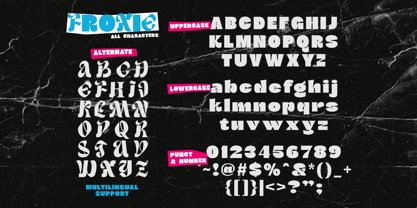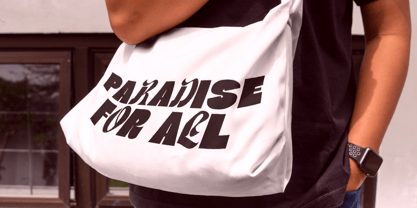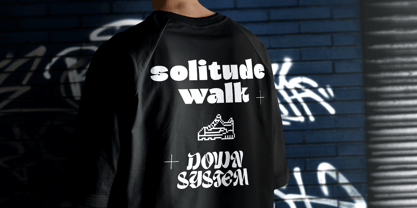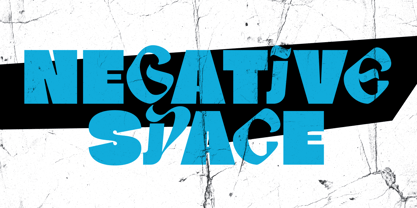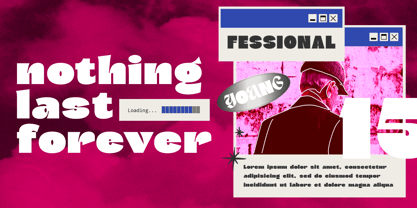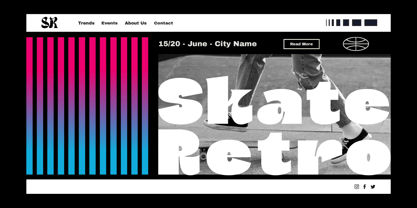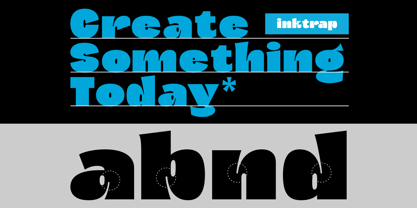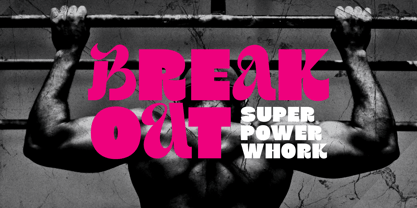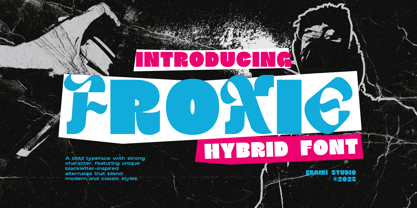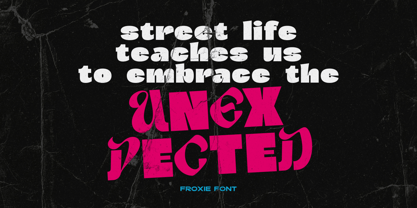
Froxie
by Ergibi Studio
The Froxie Font Family was designed by Riyadh Rahman and published by Ergibi Studio. Froxie contains 1 styles.
Froxie is a hybrid typeface that combines the clean simplicity of a modern sans serif with the bold, ornamental spirit of classic blackletter. The result is a typeface that feels both contemporary and historic, perfect for projects that want to stand out with a touch of elegance. Its sans-inspired structure ensures legibility, while the blackletter details add personality and expressive depth. This balance makes Froxie a versatile choice for branding, editorial design, fashion logos, and street-style-inspired visuals. if you have any questions, don’t hesitate to contact us Ergibi Studio